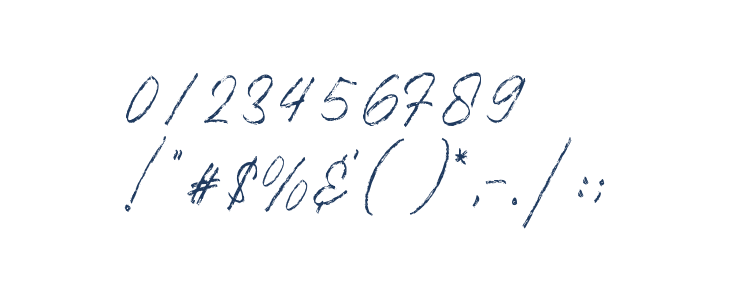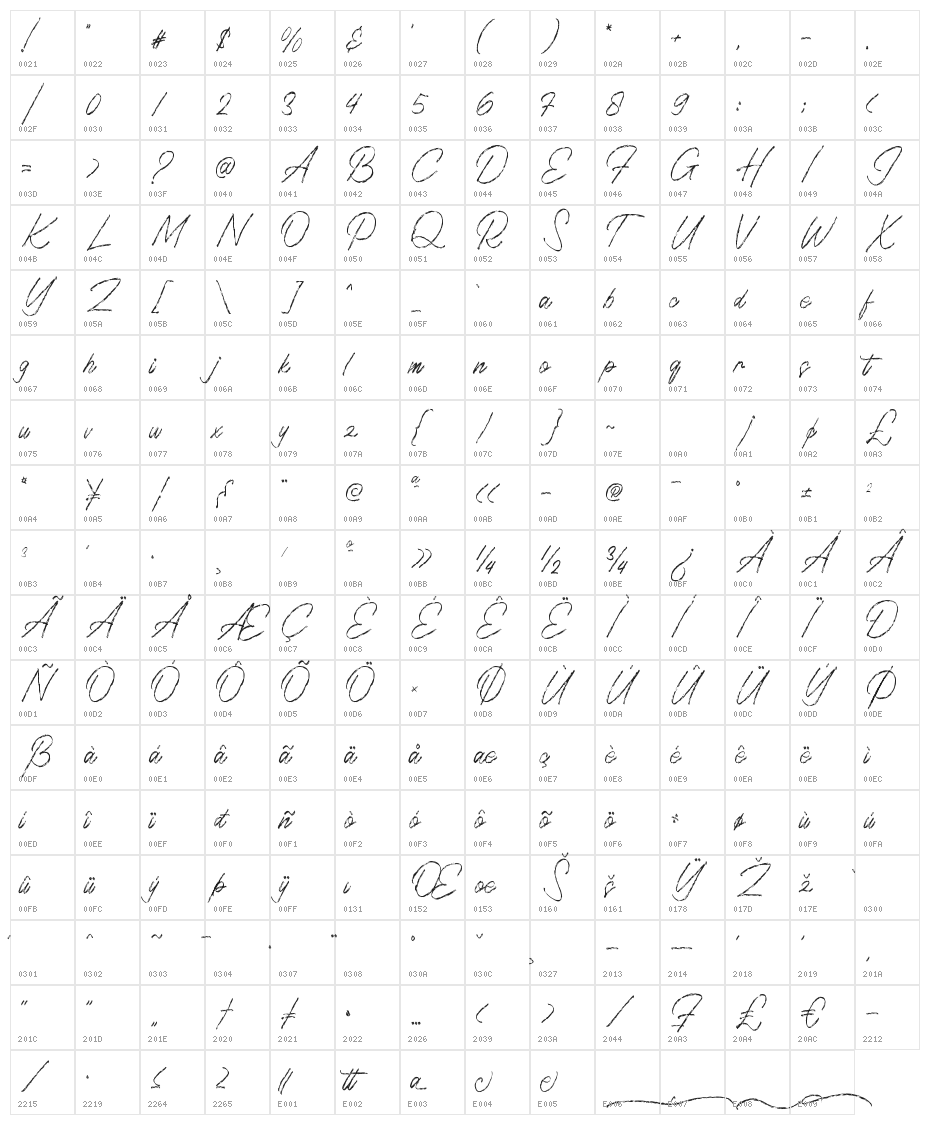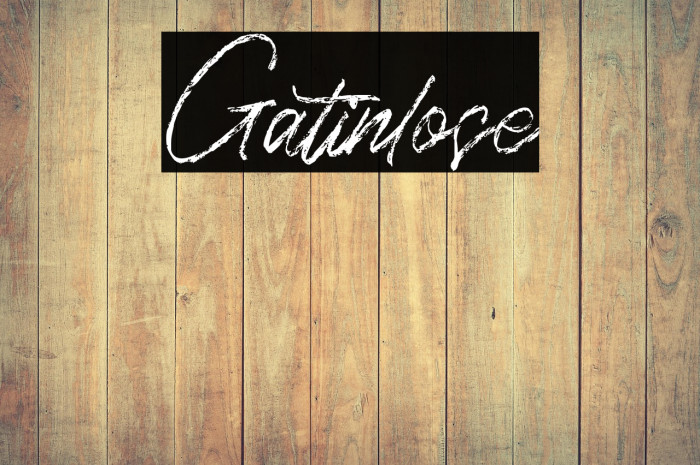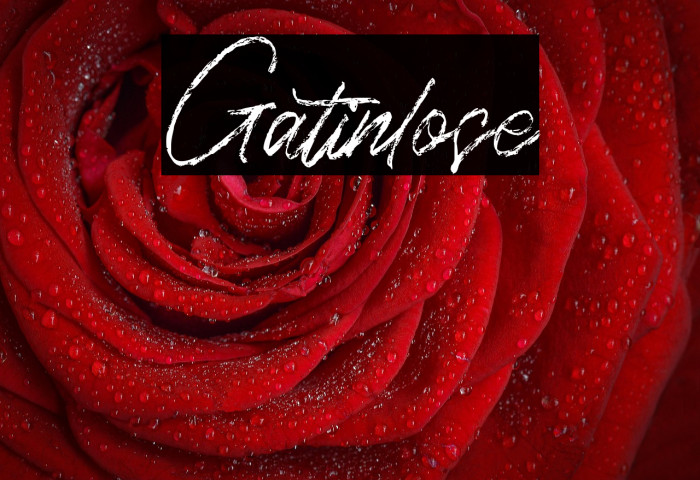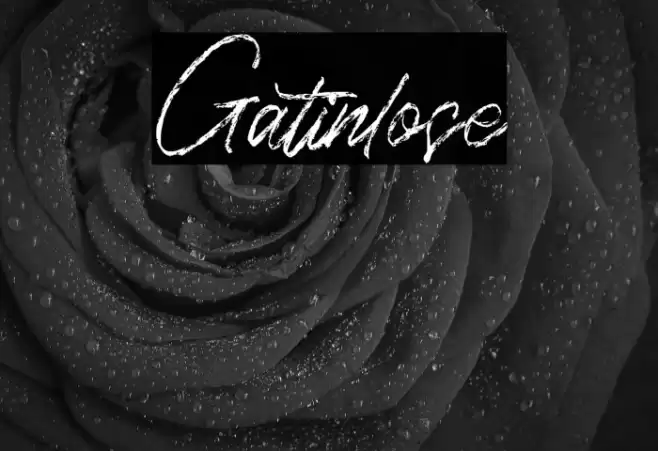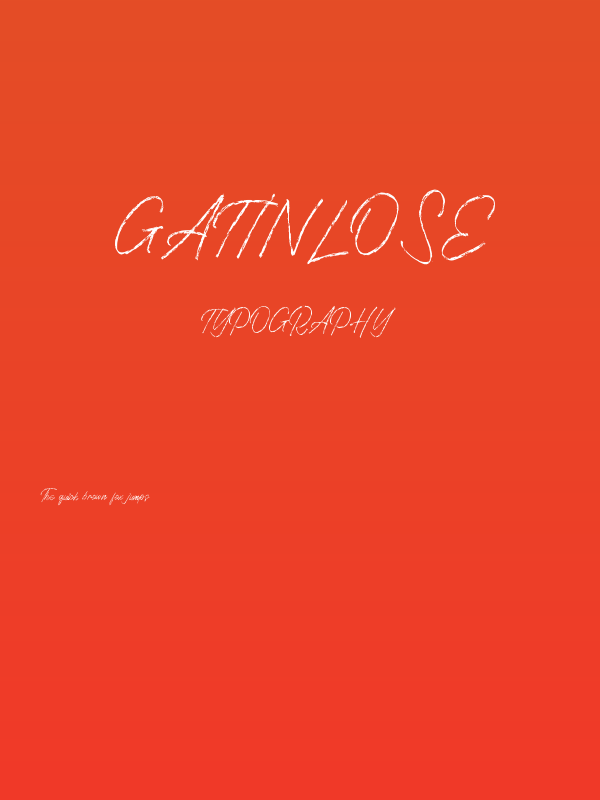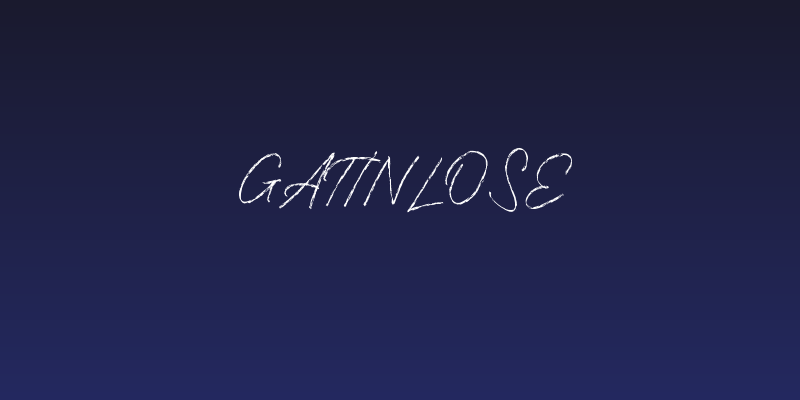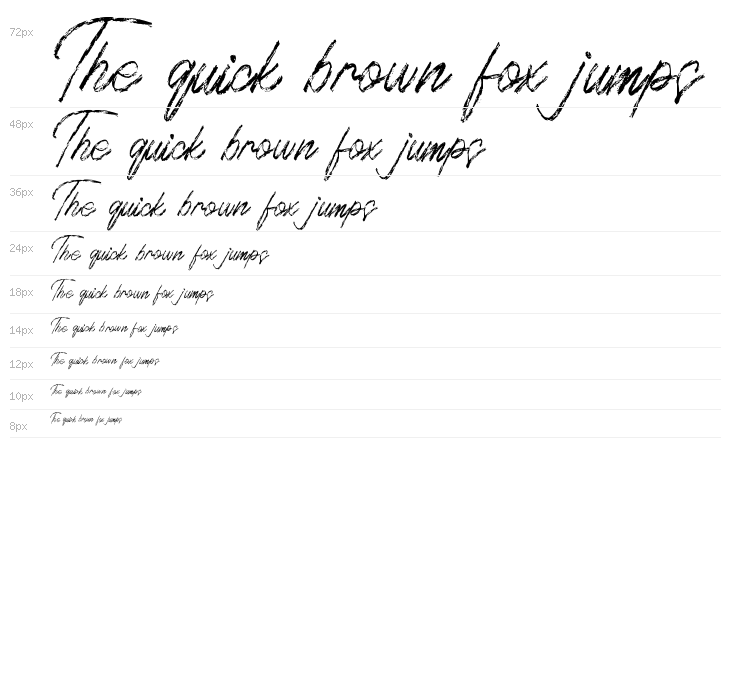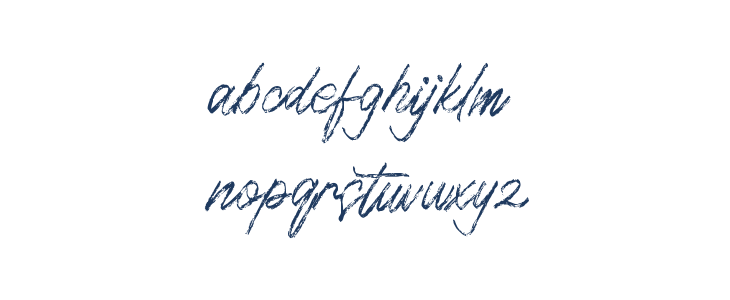
Gatinlose Font
Gatinlose Description
This font exudes a dynamic and energetic style, characterized by its cursive, handwritten appearance. The letters are fluid and connected, with a natural flow that mimics the motion of handwriting. The strokes vary in thickness, adding a textured, almost sketch-like quality to the characters. This font captures a sense of spontaneity and creativity, making it ideal for projects that require a personal touch. The uppercase letters maintain a consistent height, while the lowercase letters exhibit playful variations, enhancing the font's informal and approachable feel. The numerals and special characters are crafted with the same attention to detail, ensuring a cohesive look across all elements.
| Proposed Projects | Ideal for greeting cards, personal branding, creative invitations, and artistic projects. |